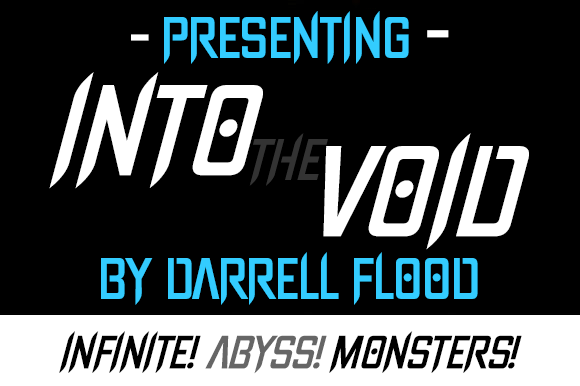
Introduction to Into the Void Font
Into The Void is a tall modern font in an unusual sci-fi horror style.
Perfect for alien encounters, cosmic evil, and futuristic exploration .